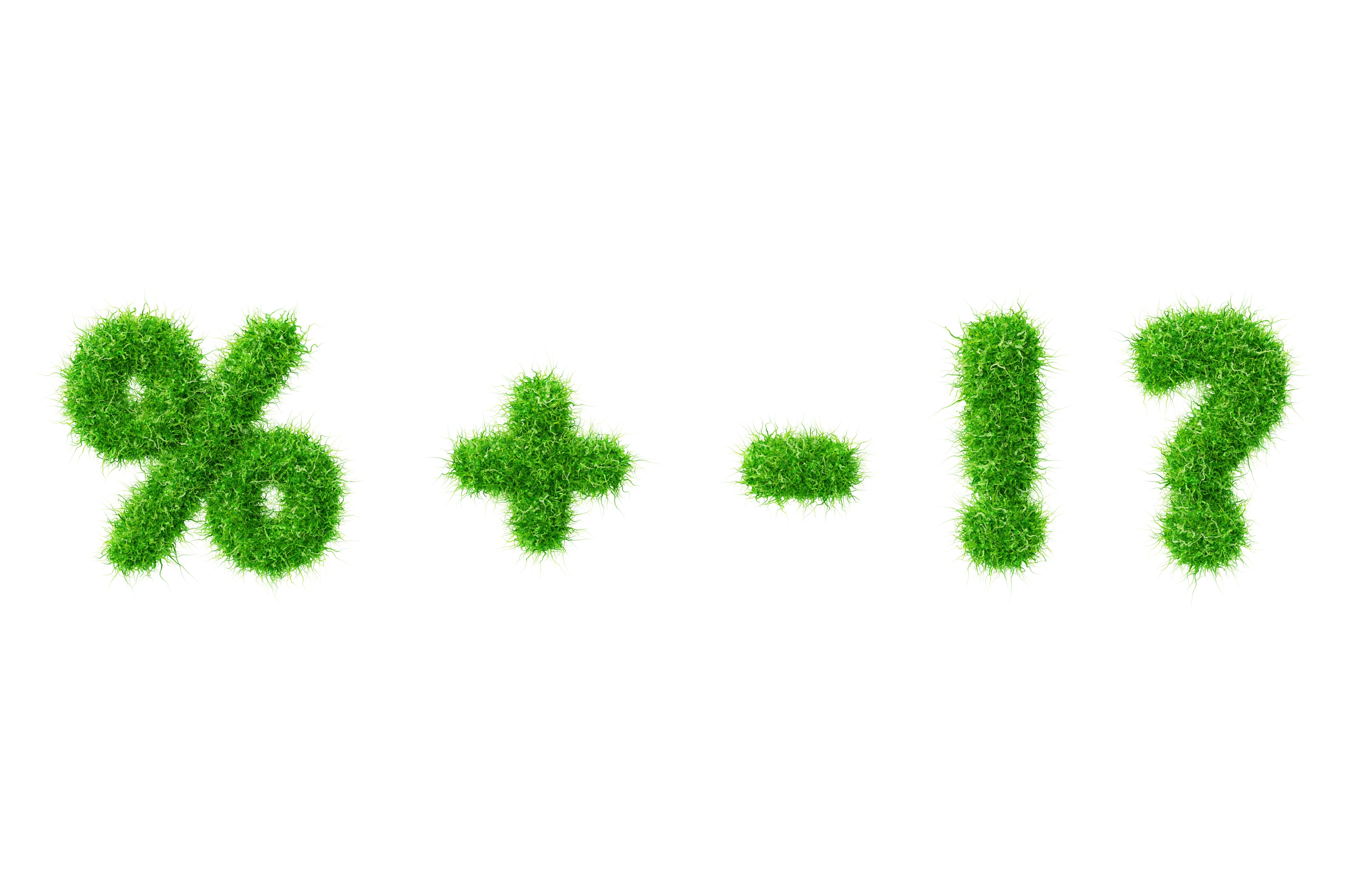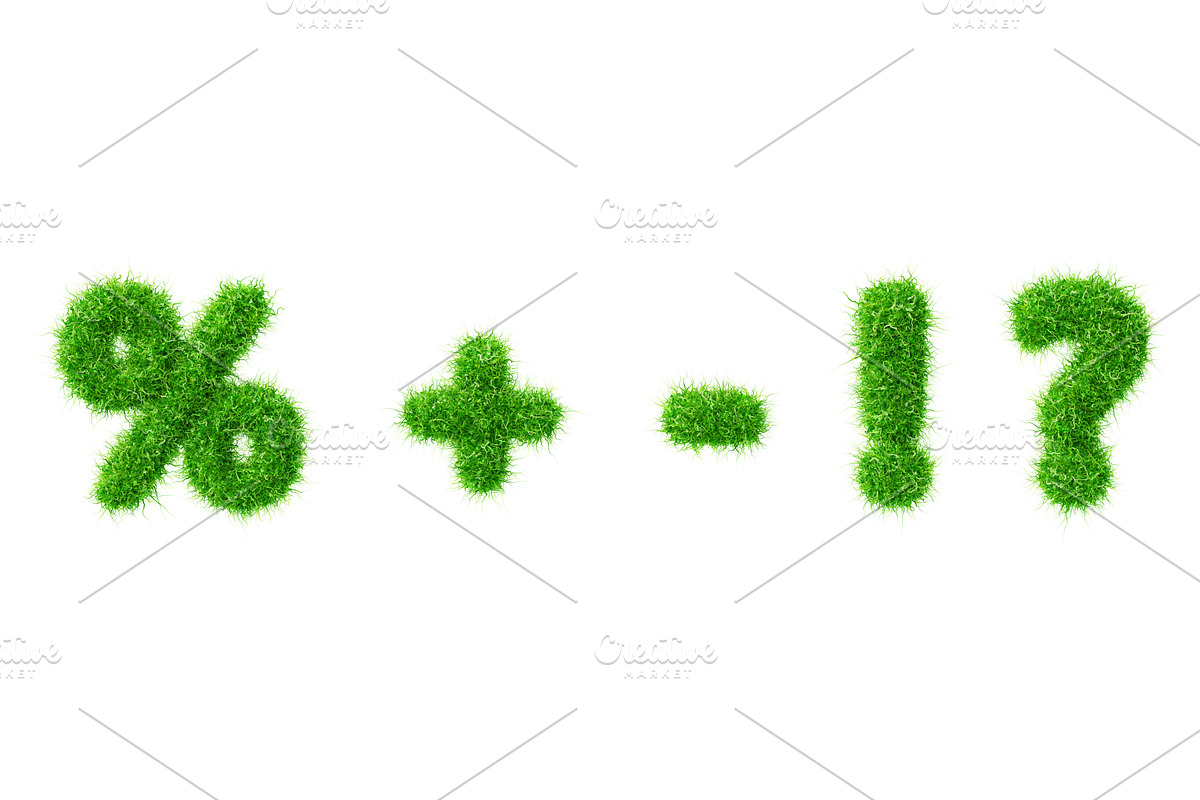
3d green grass font symbols set
3d green grass font symbols set. Fresh plant moss percent sign, question mark, exclamation point, plus and minus with soft fluffy herb texture, sale discount, isolated design elements. 3D illustration